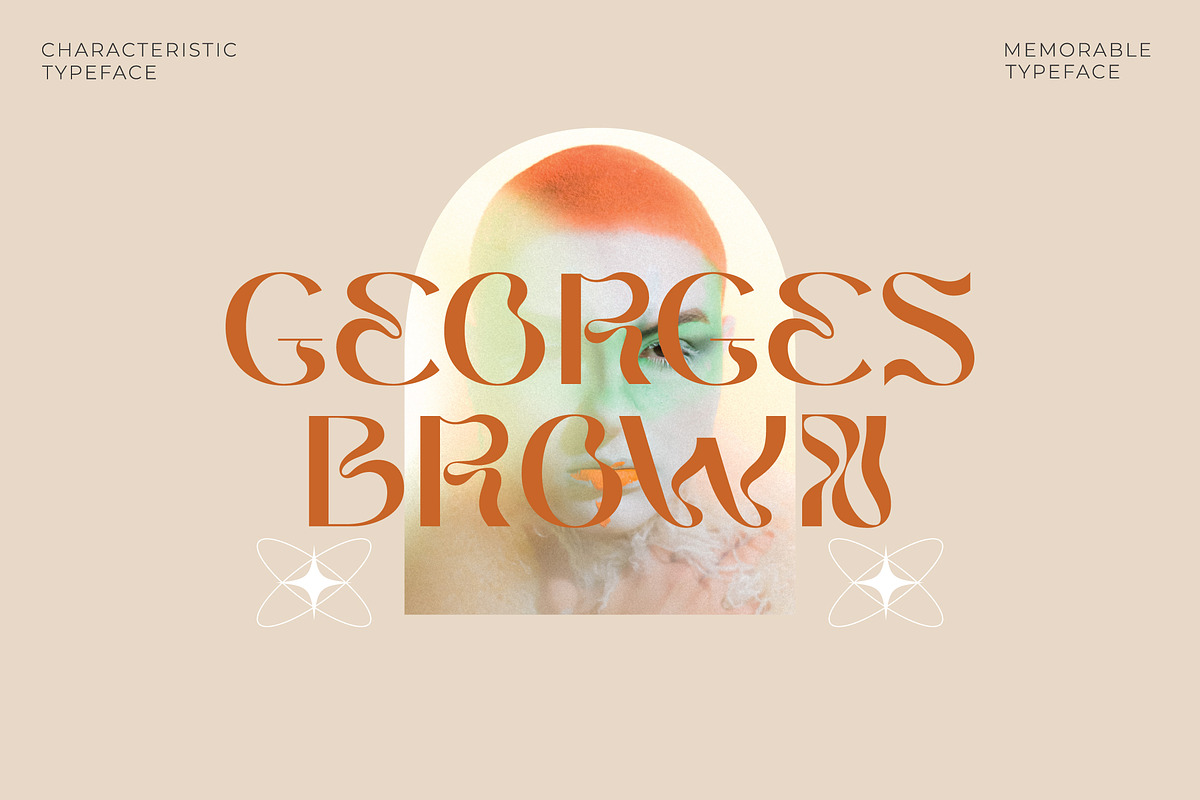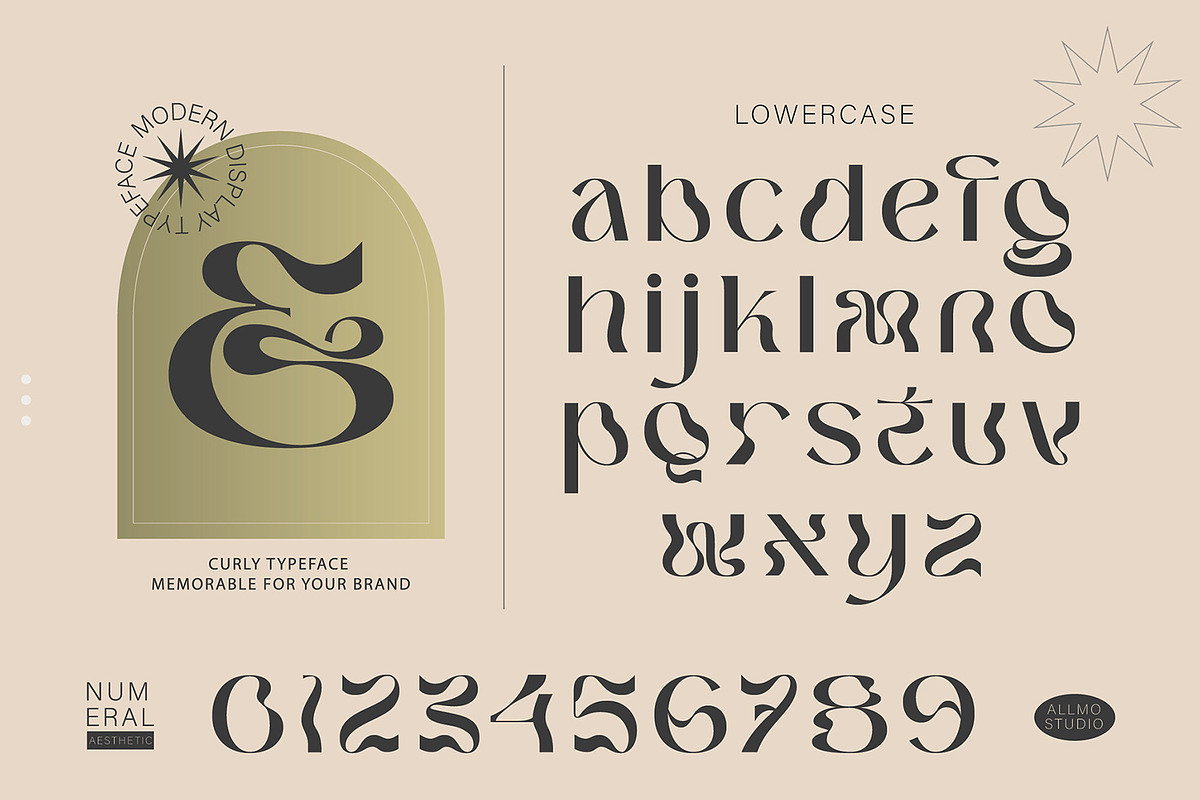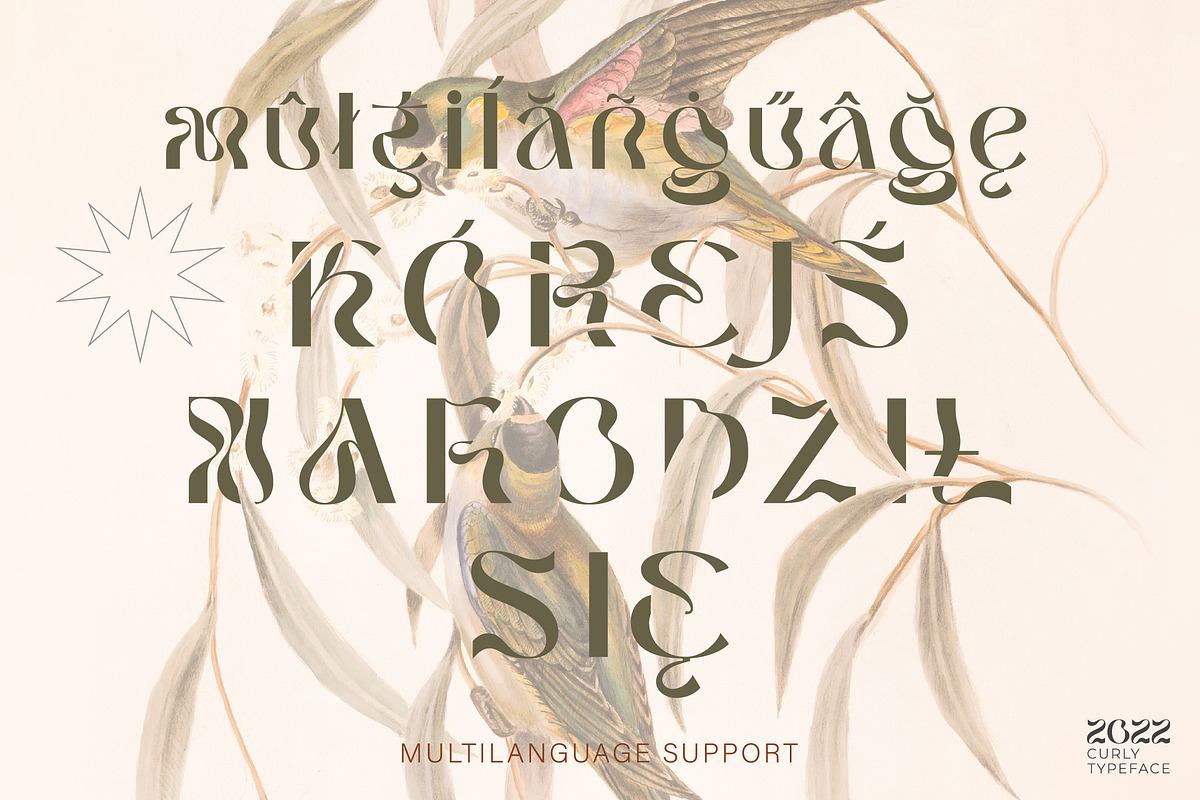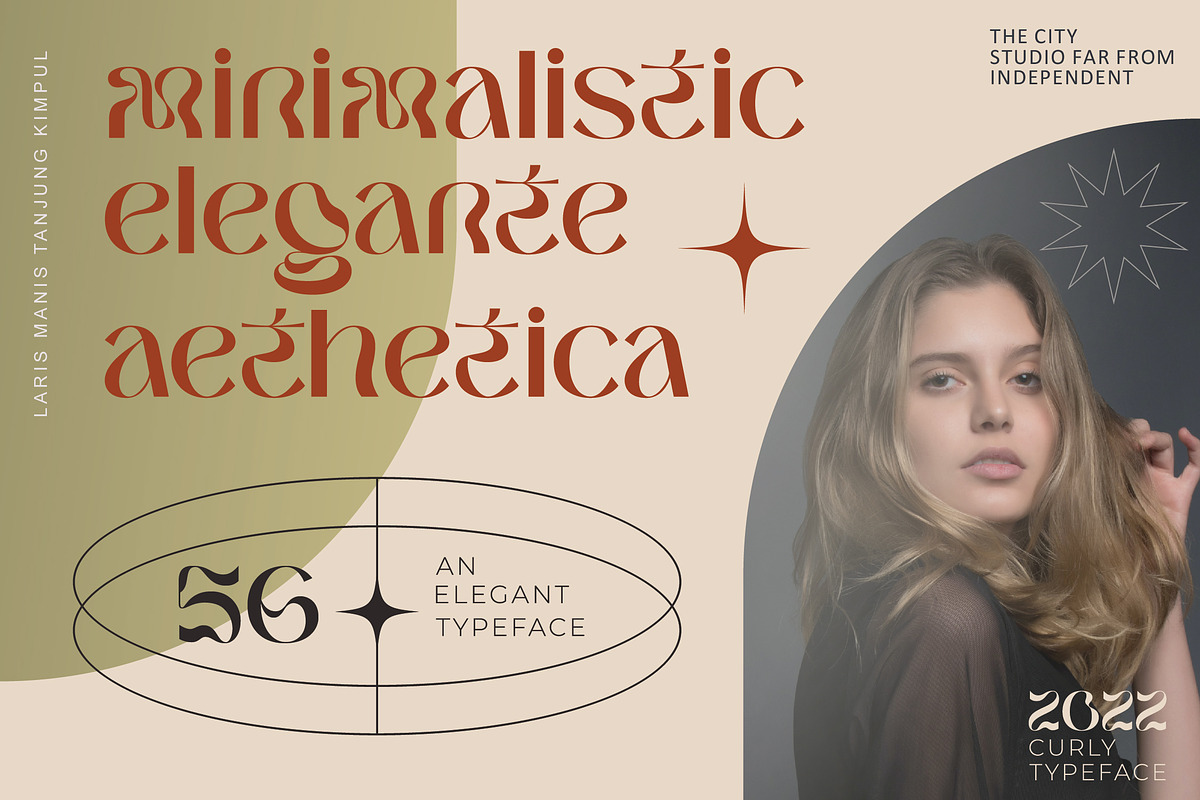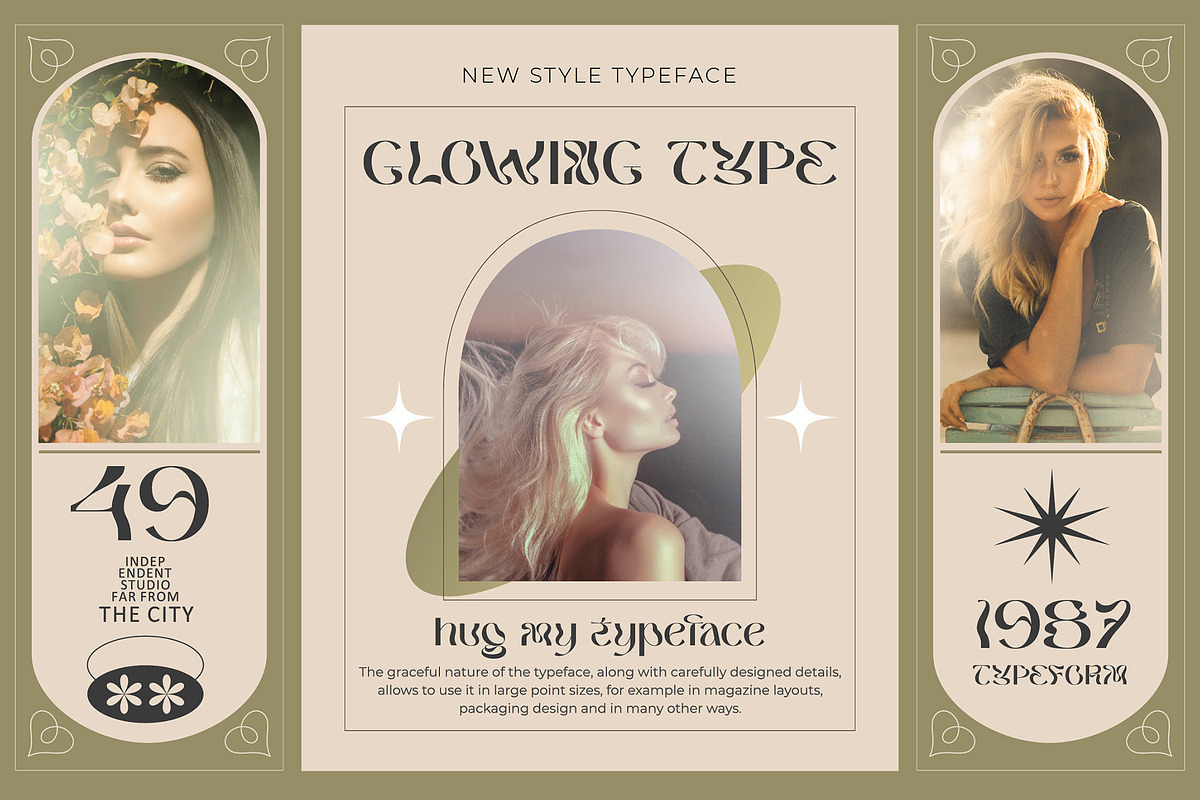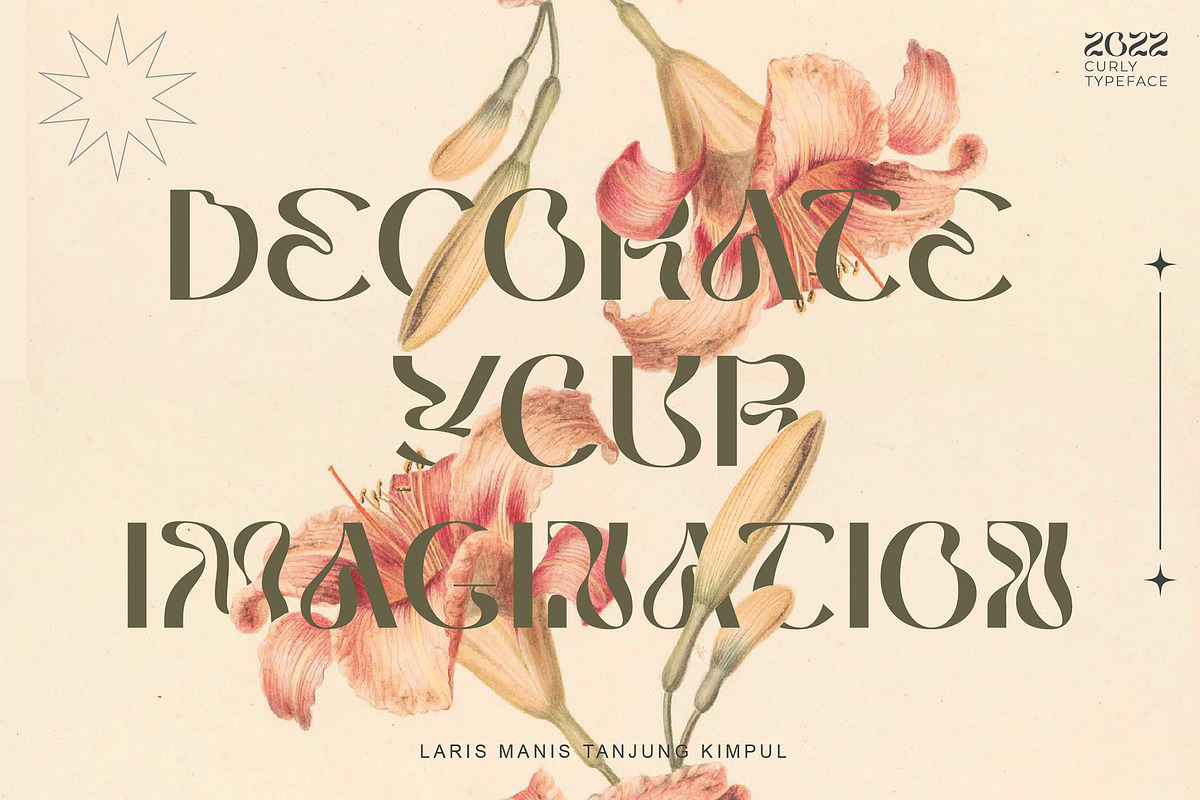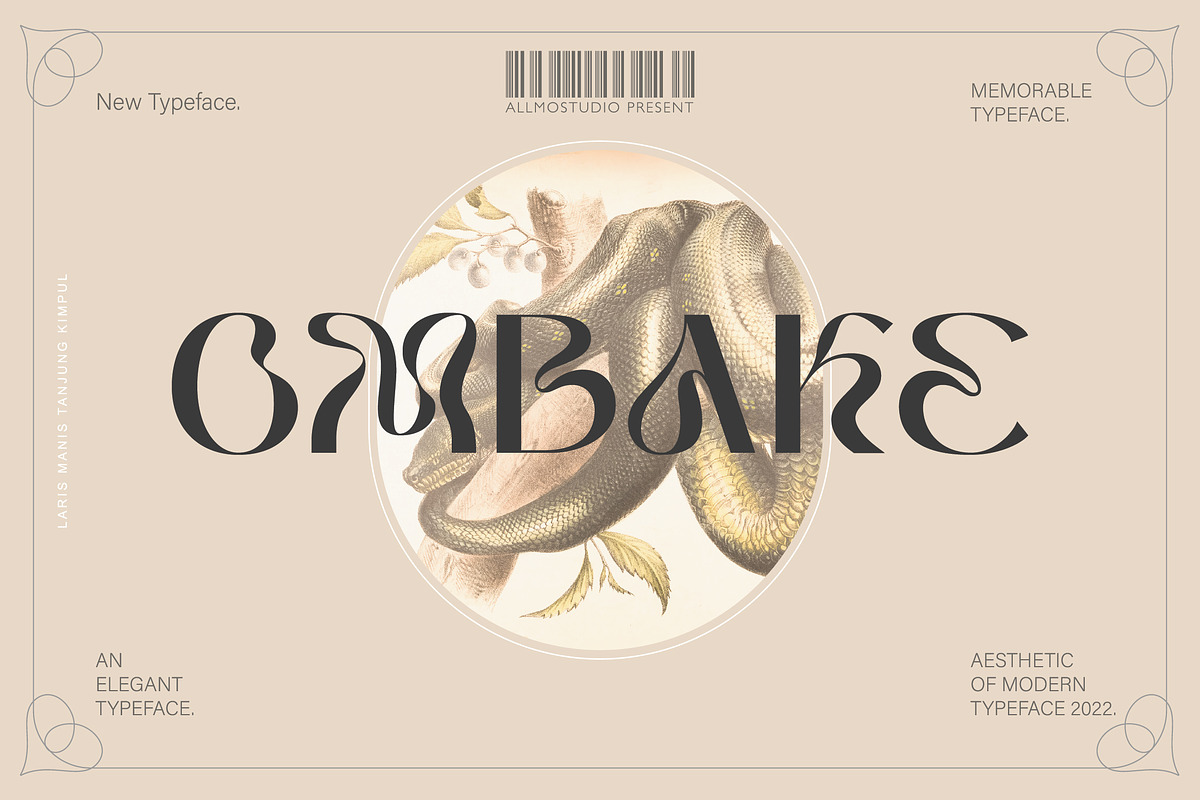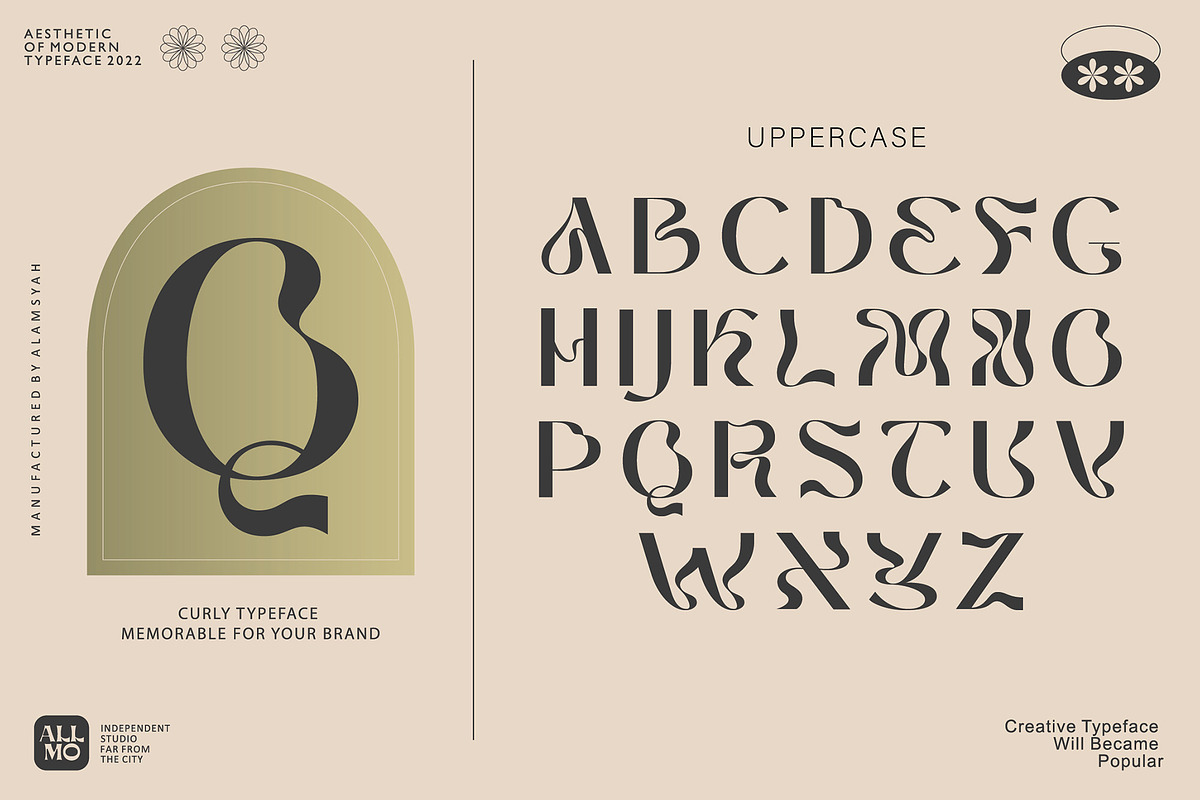
Ombake
OMBAKE is a curly typeface that looks incredible and has attractiveness when you see it. Each letter shape has been designed to have a character that is easily recorded in the mind.
This font has elegant and classy characters, clean lines, and smooth curves giving any project an extra touch of class.
A sans serif modern and curly typeface that his own unique style & modern look. This typeface is perfect for large point sizes, for example in magazine layouts, packaging, book, title design, fashion brand, clothes, lettering, quotes design, and many other ways to your work.
We make all the characters PUA encoded and multilingual.